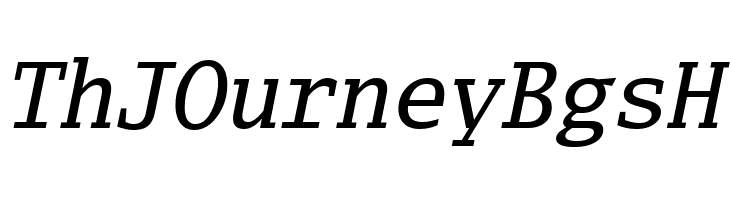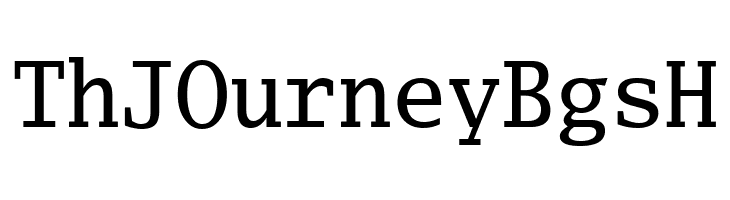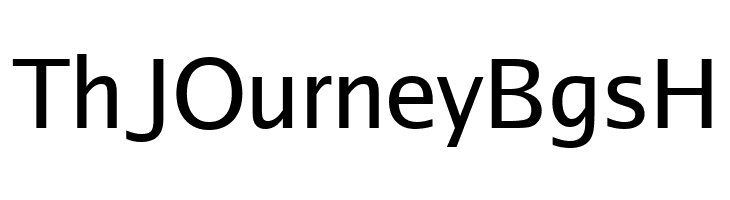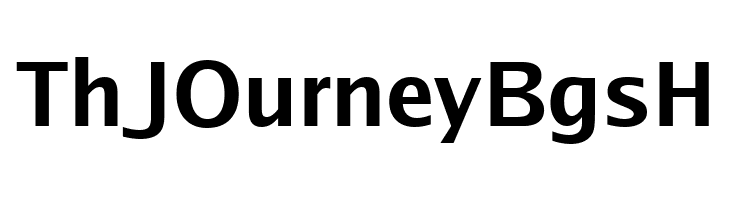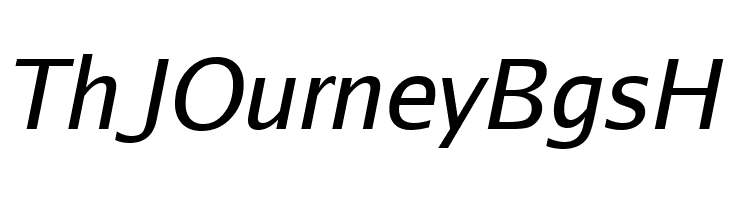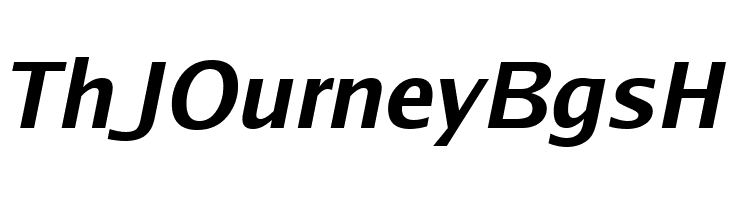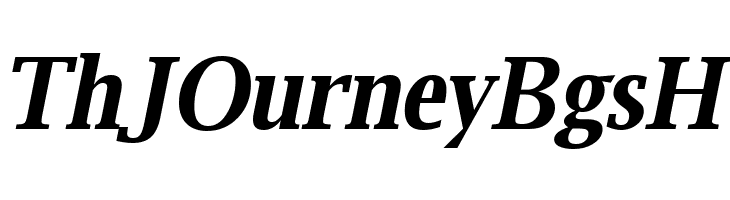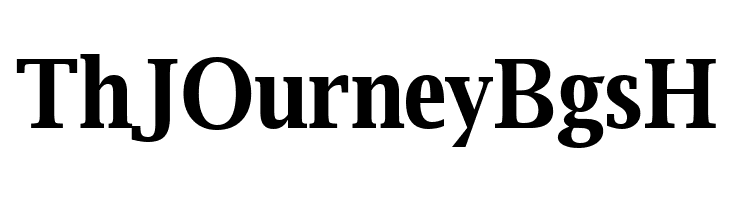
• Luxi Mono Oblique
A monospaced oblique font with uniform spacing and a modern, dynamic style.
• Luxi Mono Regular
A clean, monospaced serif font ideal for coding and tabular data.
• Luxi Sans Bold
A bold, modern sans-serif font with clean lines and excellent readability.
• Luxi Sans Bold Oblique
A bold, oblique sans-serif font with a modern and dynamic style.
• Luxi Sans Oblique
A modern sans-serif font with an oblique style, offering a dynamic and clean appearance.
• Luxi Sans Regular
A clean, modern sans-serif typeface with balanced proportions and excellent readability.
• Luxi Serif Bold
A bold serif font with strong, elegant strokes and well-defined serifs.
• Luxi Serif Bold Oblique
A bold, oblique serif font with a classic yet dynamic style.
• Luxi Serif Oblique
A classic serif font with an oblique slant, offering elegance and readability.
• Luxi Serif Regular
A classic serif typeface with elegant, balanced strokes and high readability.